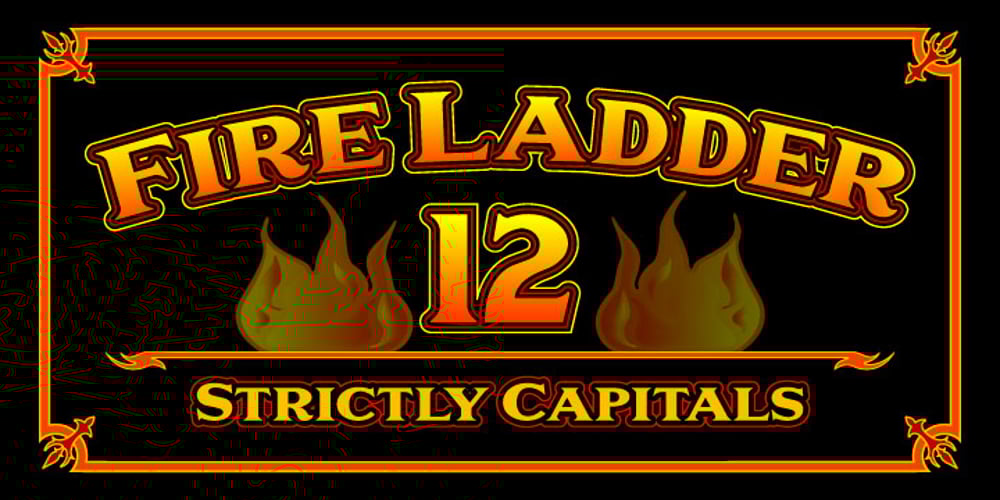
Fire Ladder
Fire Ladder font
Fire Ladder Font Family was designed by Aaron Bogle and published by The Printers. Fire Ladder contains 1 styles and family package options. Please read before purchasing! This font resembles one the of many traditional sign-writer styles used for fire and rescue vehicle lettering. Limited to English and entirely to capitals, numbers and select punctuation characters. The intended purpose for this font is for vehicle lettering and sign design. You may find it useful for other applications as well.